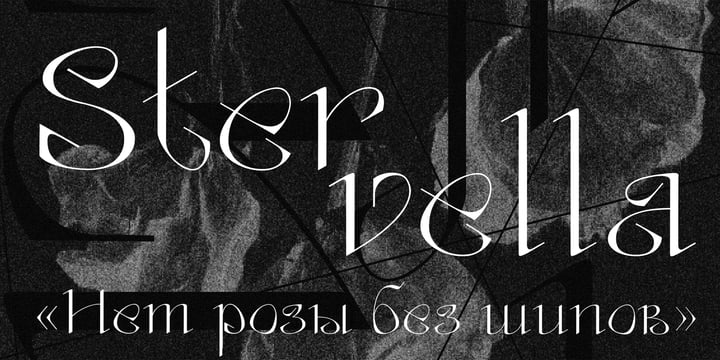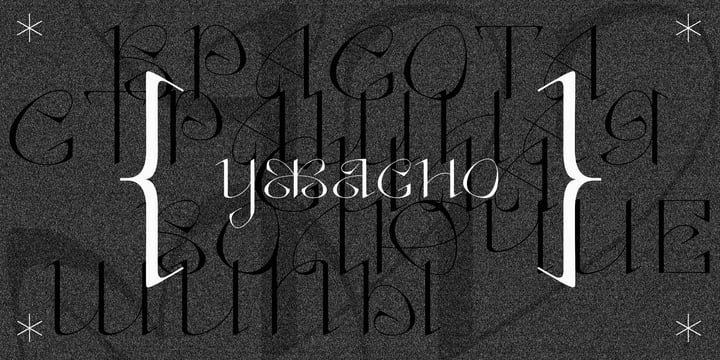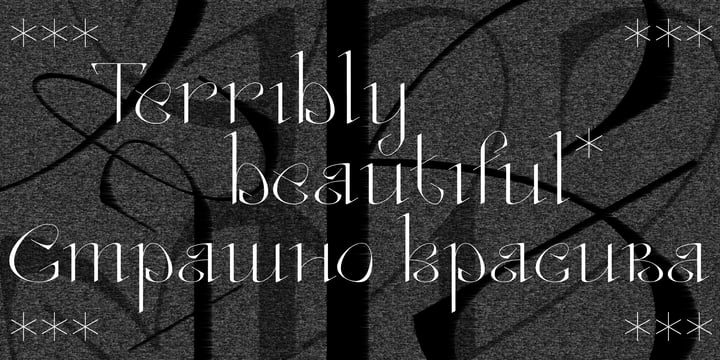
Stervella Font
Stervella FontElegant and prickly; smooth and sharp; beautiful, but evil – Stervella – display typeface. Its serifs resemble the twisting branches and thorny thorns of a blackthorn, trying to prick neighboring letters. This font is inspired by the forms of ancient Uncial, combining antique with pointed gothic writing.